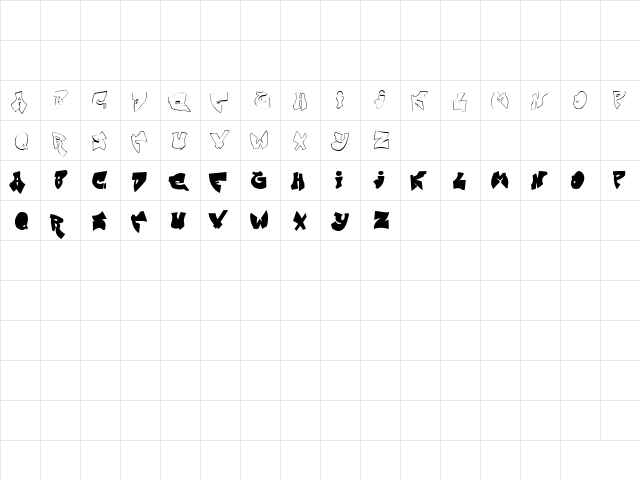
Zit Graffiti Regular
Design Context for Zit Graffiti Typeface
Zit Graffiti is a composed and adaptable typeface that performs quietly and consistently across a wide range of design contexts.